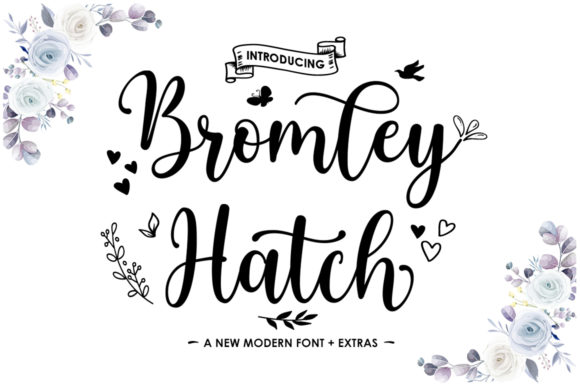
Venture into a Realm of Elegance: Bromley Hatch Script Font - The Pinnacle of Logo Design
Unleash the captivating allure of Bromley Hatch Script! This masterpiece of a font exudes a magical charm, inviting you to explore a world of sophistication and artistry. Each letter dances with an enchanting grace, effortlessly captivating the hearts of designers and everyday users alike.
As a script font, Bromley Hatch Script possesses an innate fluidity, mimicking the gentle strokes of a calligraphy pen. Its characters intertwine harmoniously, creating a visual symphony that dances across the page. The result is a font that radiates elegance and distinction, setting your designs apart from the ordinary.
Embrace the Power of Versatility: A Multifaceted Font for Diverse Needs
Bromley Hatch Script is not merely a font; it's a versatile chameleon, effortlessly adapting to a myriad of creative endeavors. Whether you're crafting logos, branding materials, website designs, or simply adding a touch of sophistication to your personal projects, this font delivers excellence. Its versatility knows no bounds, allowing you to express your creativity in countless ways.
Step into the Spotlight: Bromley Hatch Script - The Star of Logo Design
In the realm of logo design, Bromley Hatch Script shines as a true luminary. Its intricate details and captivating flow make it the perfect choice for creating logos that leave a lasting impression. Imagine your brand's name adorned with this exquisite font, radiating elegance and professionalism. Bromley Hatch Script elevates your logo to new heights, ensuring it stands out from the crowd and attracts attention wherever it goes.
Beyond Logos: A Font that Enchants Every Design Project
While Bromley Hatch Script excels in the realm of logo design, its versatility extends far beyond that narrow niche. This font breathes life into branding materials, adding a touch of sophistication to business cards, letterheads, and brochures. Its presence graces website designs, imbuing them with an air of elegance and professionalism. Even in personal projects, Bromley Hatch Script transforms simple words into works of art, adding a layer of charm and personality that captivates the senses.